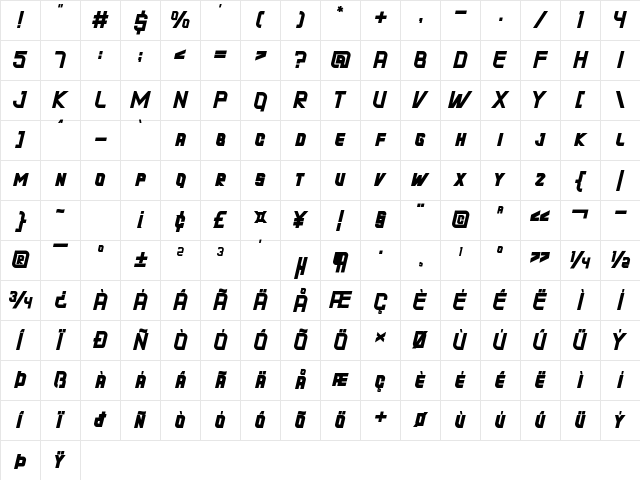
Super Guardian Regular Free Font
Super Guardian Regular
Designer: Virgiawan Listanto. 2023
Complete Super Guardian Regular glyph index. Displaying only characters natively supported by Super Guardian Regular font.
Design Context for Super Guardian
Super Guardian is a composed and adaptable typeface that performs quietly and consistently across a wide range of design contexts.